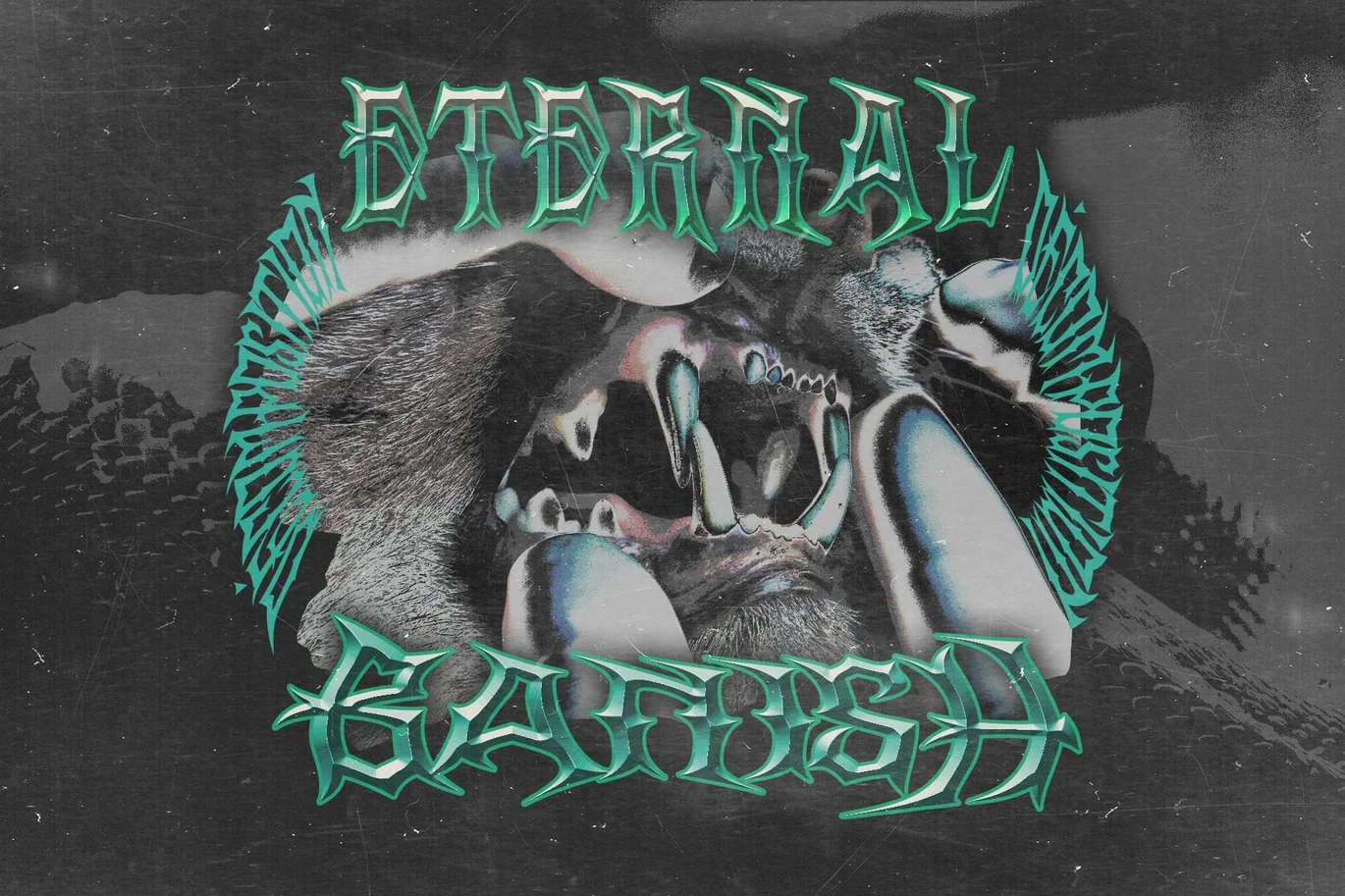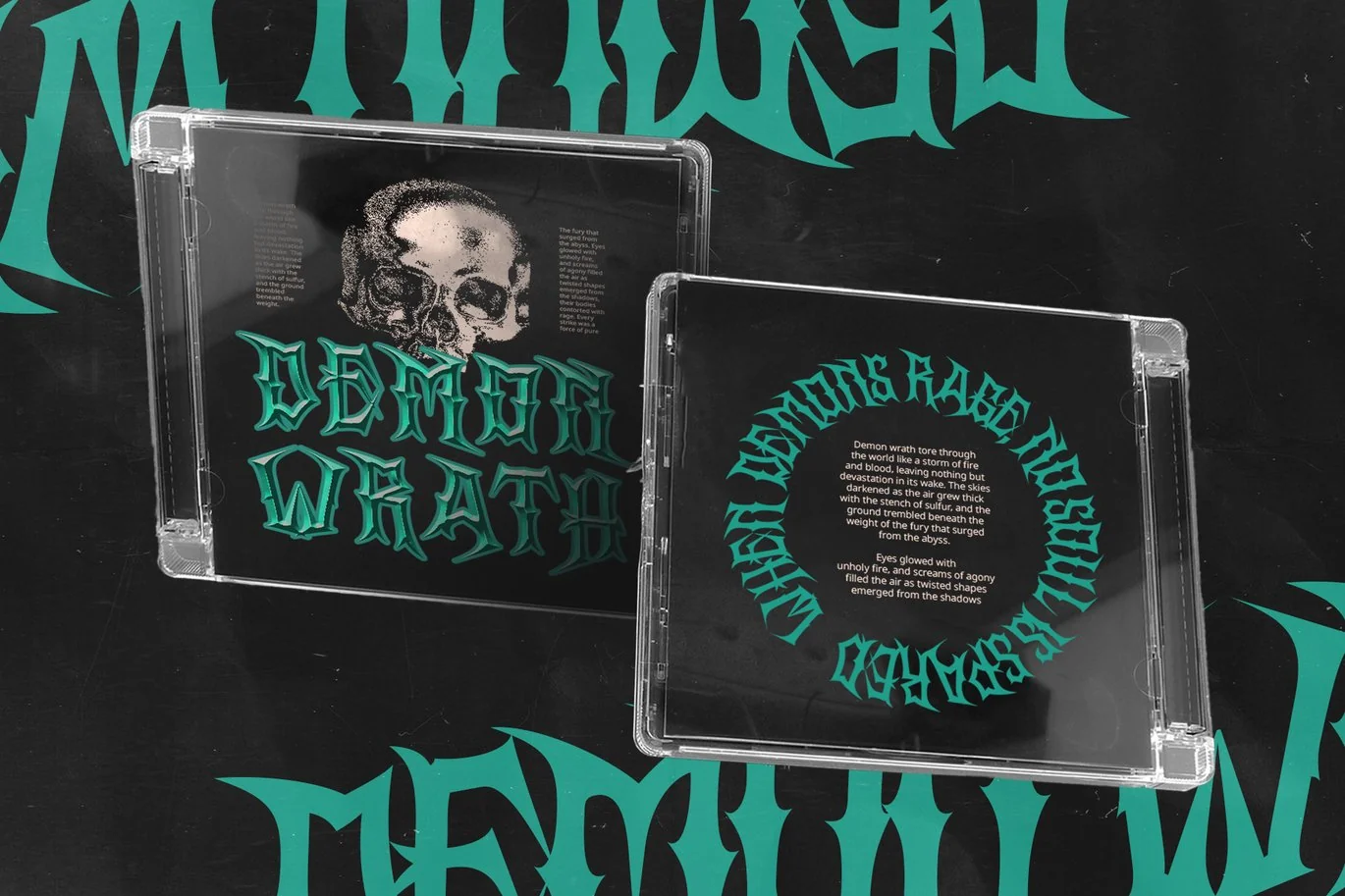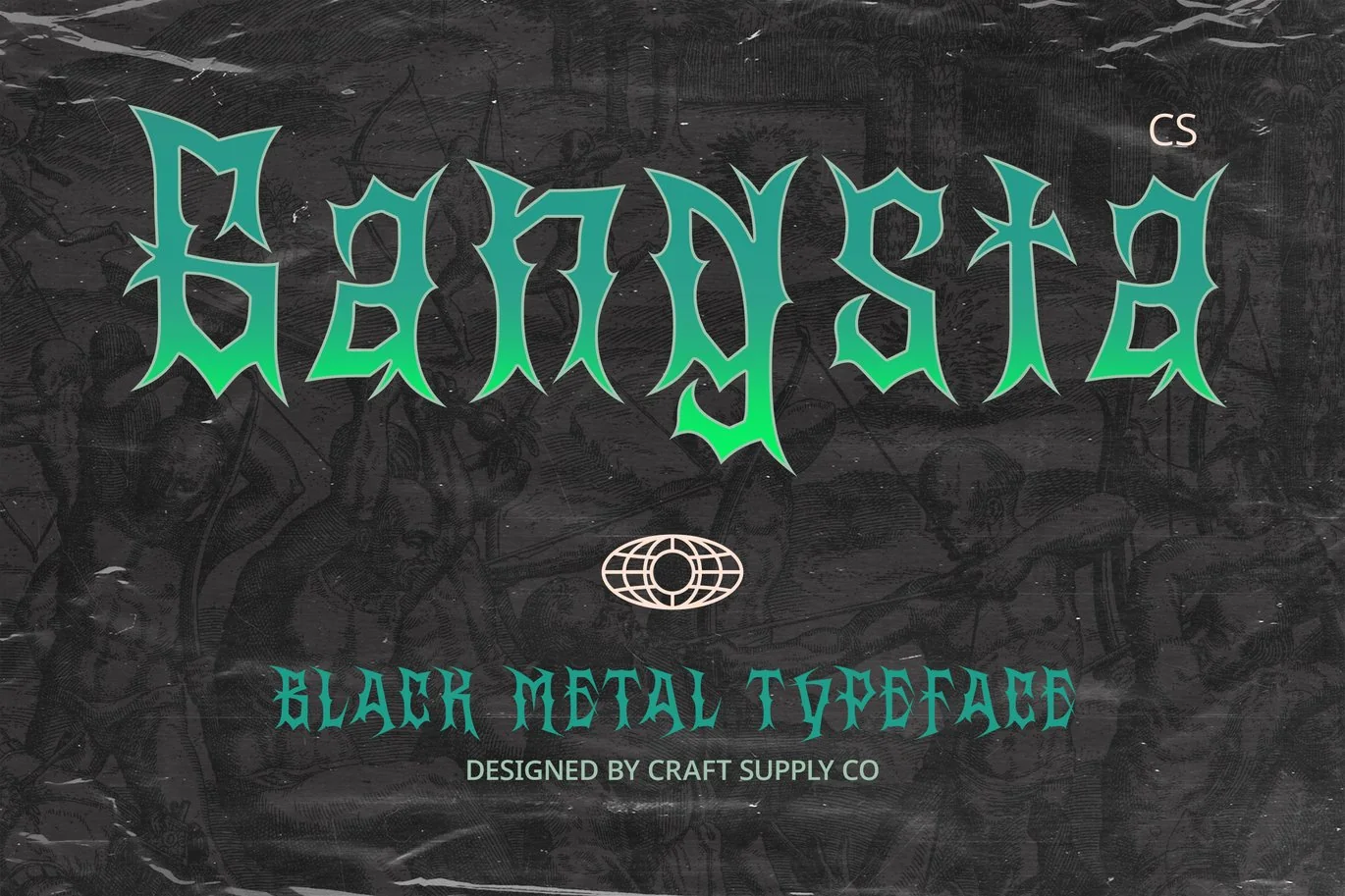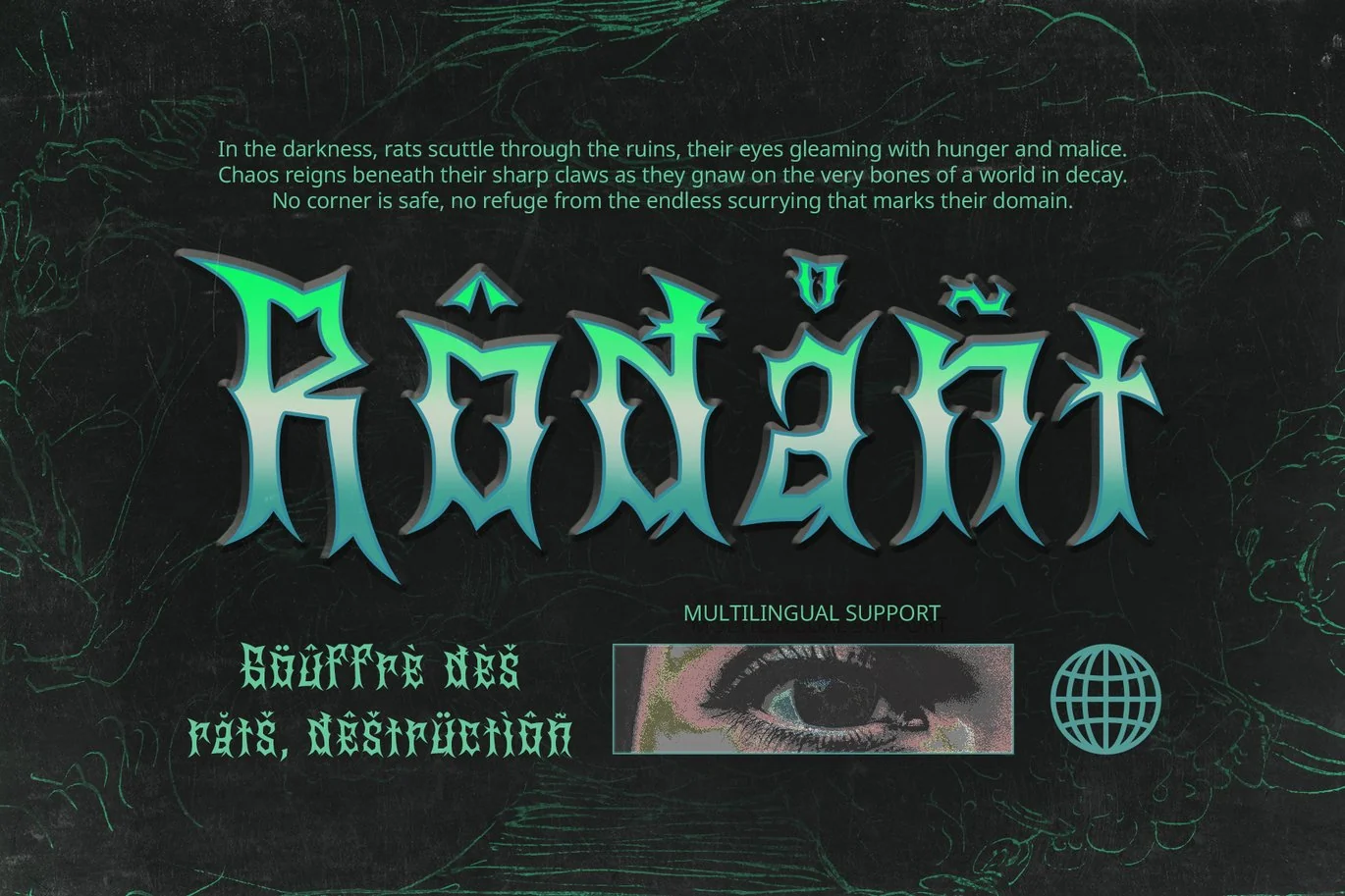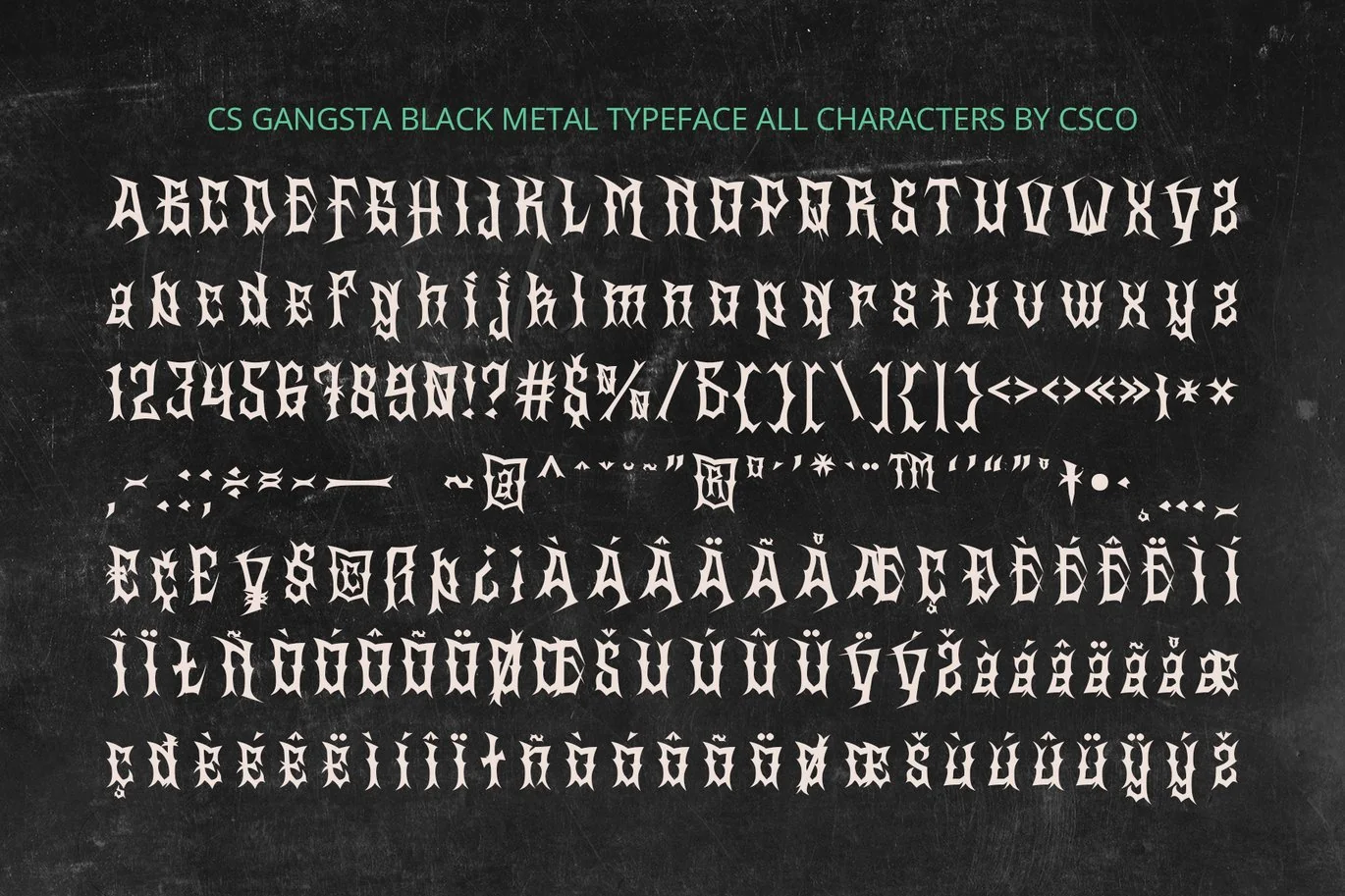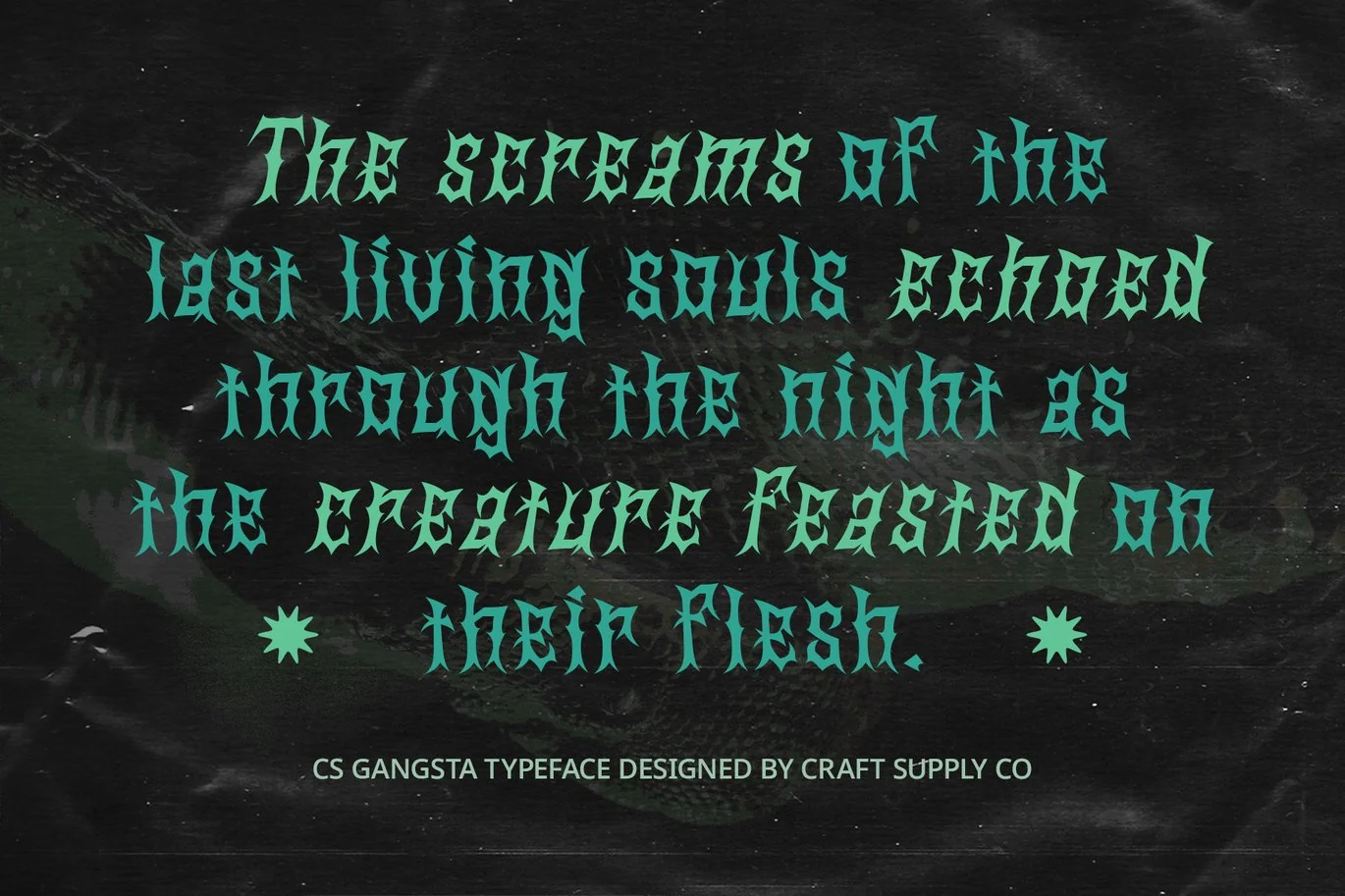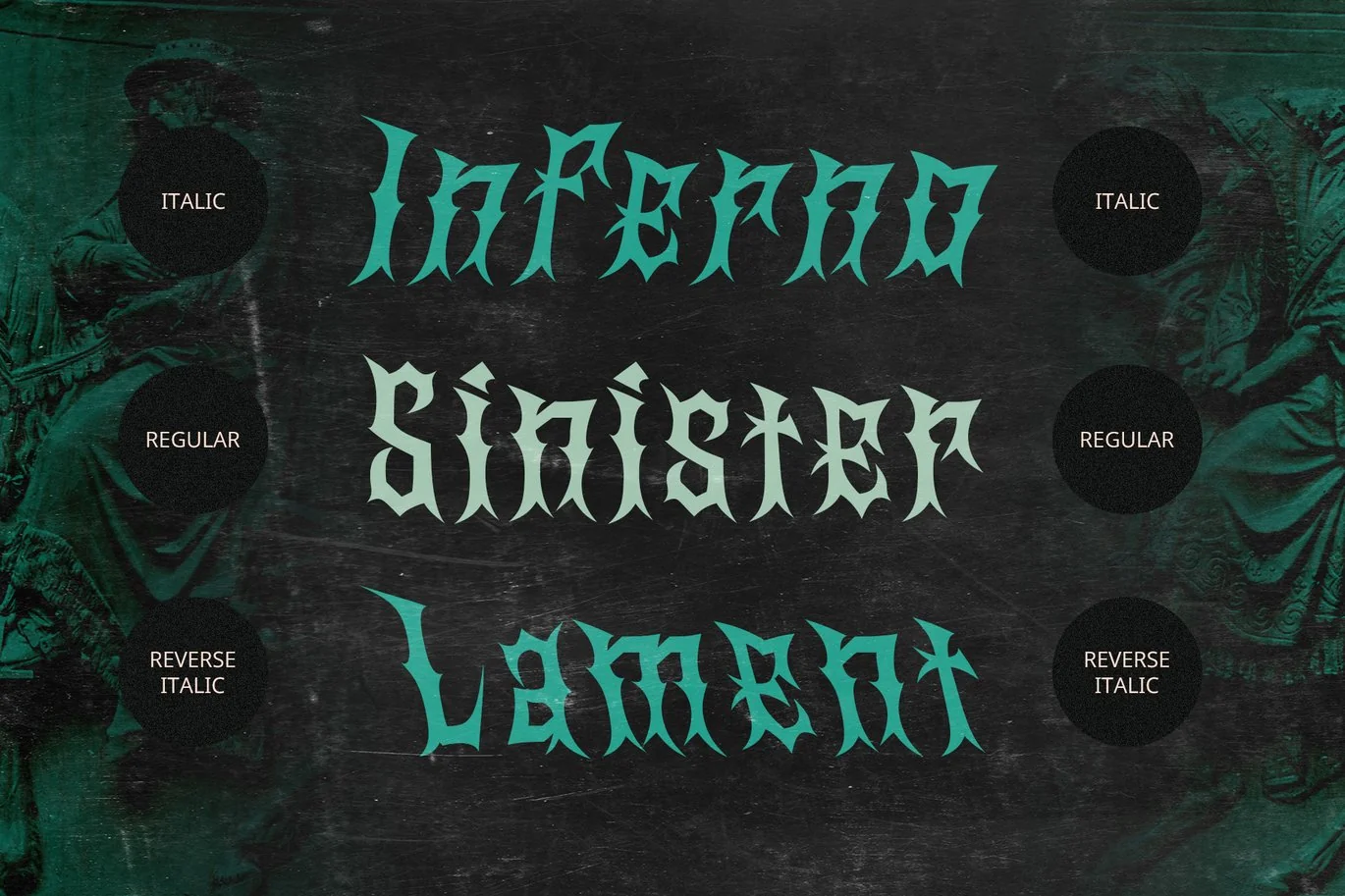
Gangsta – Black Metal Font
CS Gangsta – Black Metal Font: Bold, Rebellious, and Dark Typography
Inspired by Black Metal Aesthetic
CS Gangsta is a powerful black metal display font that draws from the raw energy and rebellious spirit of the black metal music subculture. Its sharp, fragmented letterforms embody the gothic, chaotic essence that defines this genre, while its experimental design elements enhance its dramatic appeal.
Creating an Atmosphere of Mystery and Rebellion
With its dark and edgy aesthetic, CS Gangsta evokes feelings of mystery, defiance, and underground culture. Ideal for extreme-themed projects, this font is especially effective in designs that convey an air of danger, rebellion, or even occult themes. Whether used for album covers, concert posters, or underground branding, the font makes a strong statement and enhances the rebellious nature of the message. It perfectly captures the dark atmosphere associated with black metal, adding depth and weight to any creative project.
Perfect for Bold, Impactful Designs
CS Gangsta’s bold and fragmented style is ideal for projects that want to stand out and make a dramatic impact. Its angular and jagged shapes create visual tension, perfect for designs that seek to emphasize strength, aggression, and rebellion. Whether you’re working on album art, posters, or merchandise related to extreme music, alternative culture, or dark aesthetics, this font is the ultimate choice for a fierce, eye-catching result.